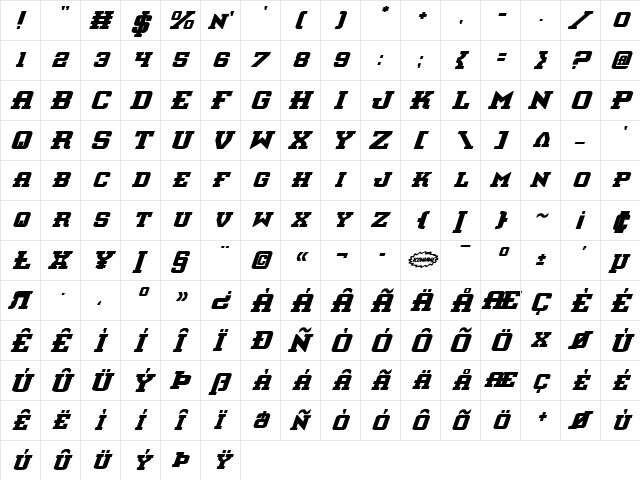
Interceptor Bold Italic Bold Italic
Design Context for Interceptor Bold Italic Typeface
Interceptor Bold Italic offers clean, dependable letterforms without strong stylistic allegiance, making it a practical choice for designers who need flexibility. The slanted form adds forward momentum and visual energy. Its bold stroke weight gives it real presence on the page.